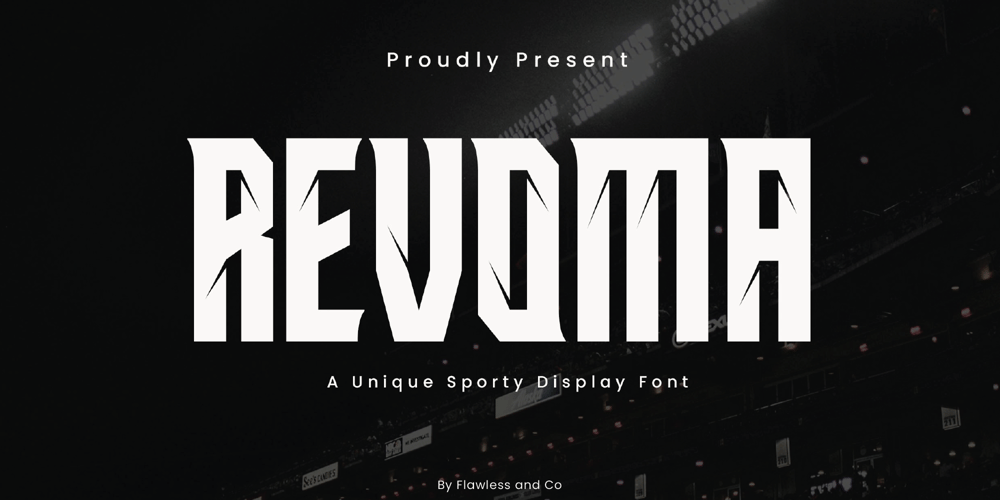
Revoma
Revoma font
Revoma Font Family was designed by Achmad Yani and published by Flawlessandco. Revoma contains 1 styles and family package options. Introducing “Revoma,” a sports racing font designed to evoke the thrill and intensity of high-speed racing. With its bold, dynamic letterforms and powerful presence, Revoma is perfect for racing branding, sports events, event promotions, merchandise, and more, ensuring your designs accelerate to the front of the pack.There’s some connected letters and some alternates that suitable for any graphic designs such as branding materials, t-shirt, print, business cards, logo, poster, t-shirt, photography, quotes .etcThis font support for some multilingual. Also contains uppercase A-Z and lowercase a-z, alternate character, numbers 0-9, and some punctuation.If you need help, just write me! Thanks so much for checking out my shop!